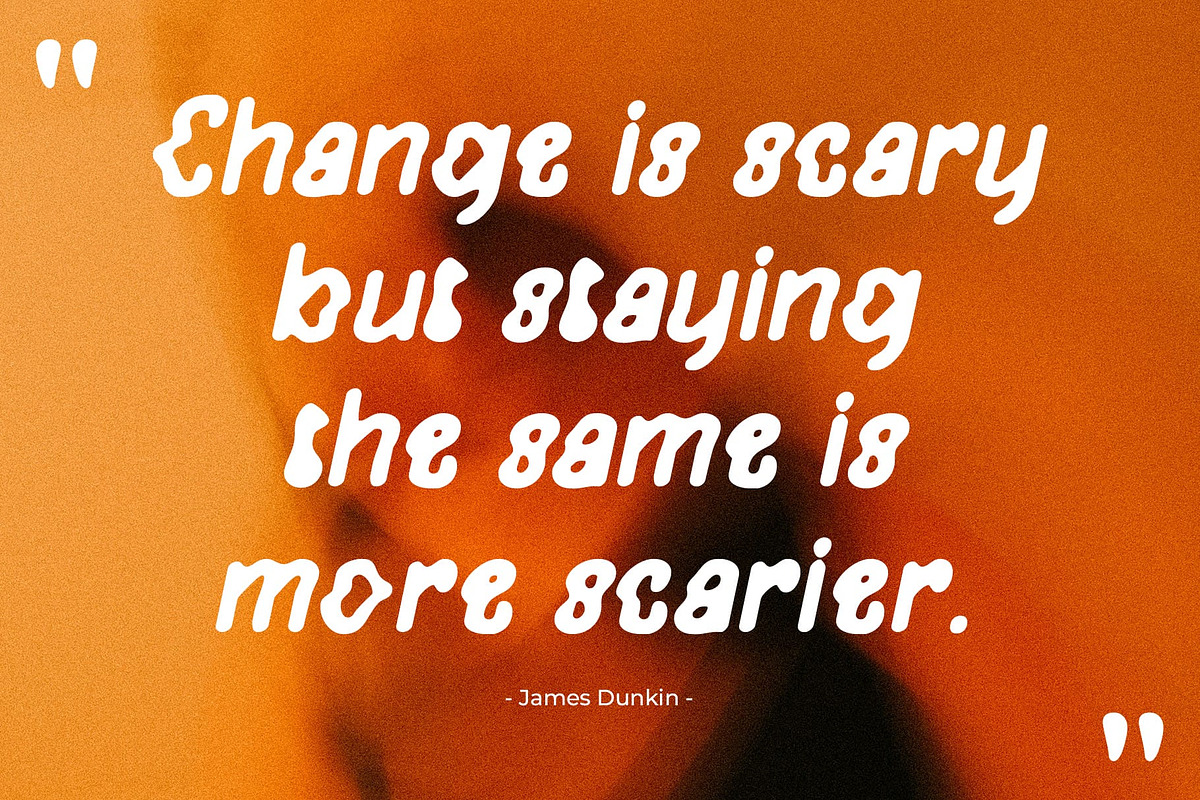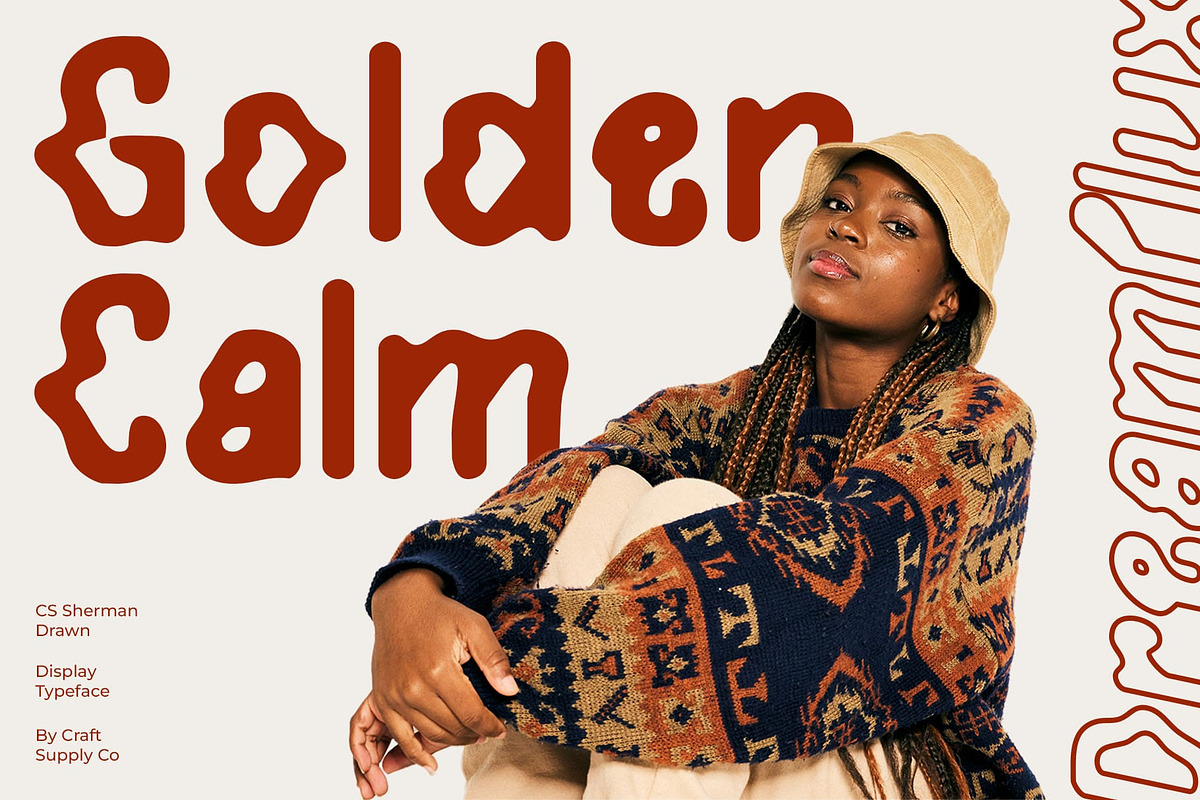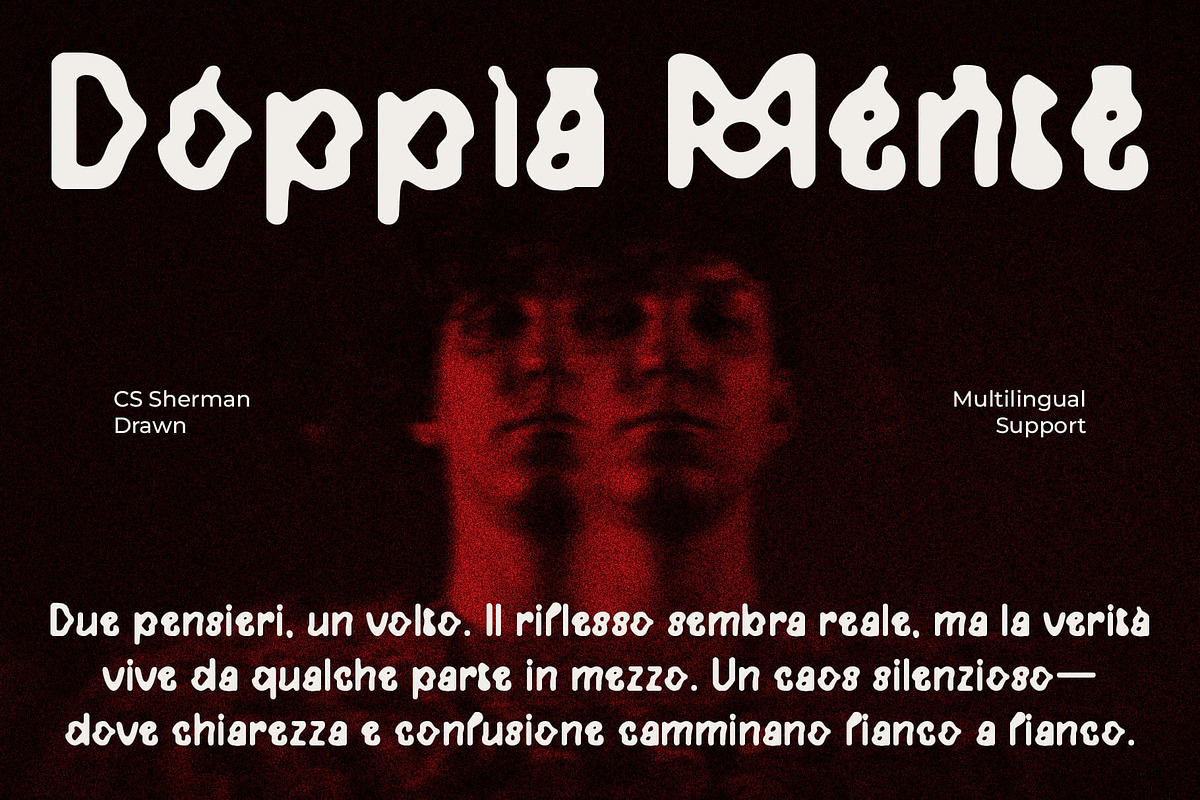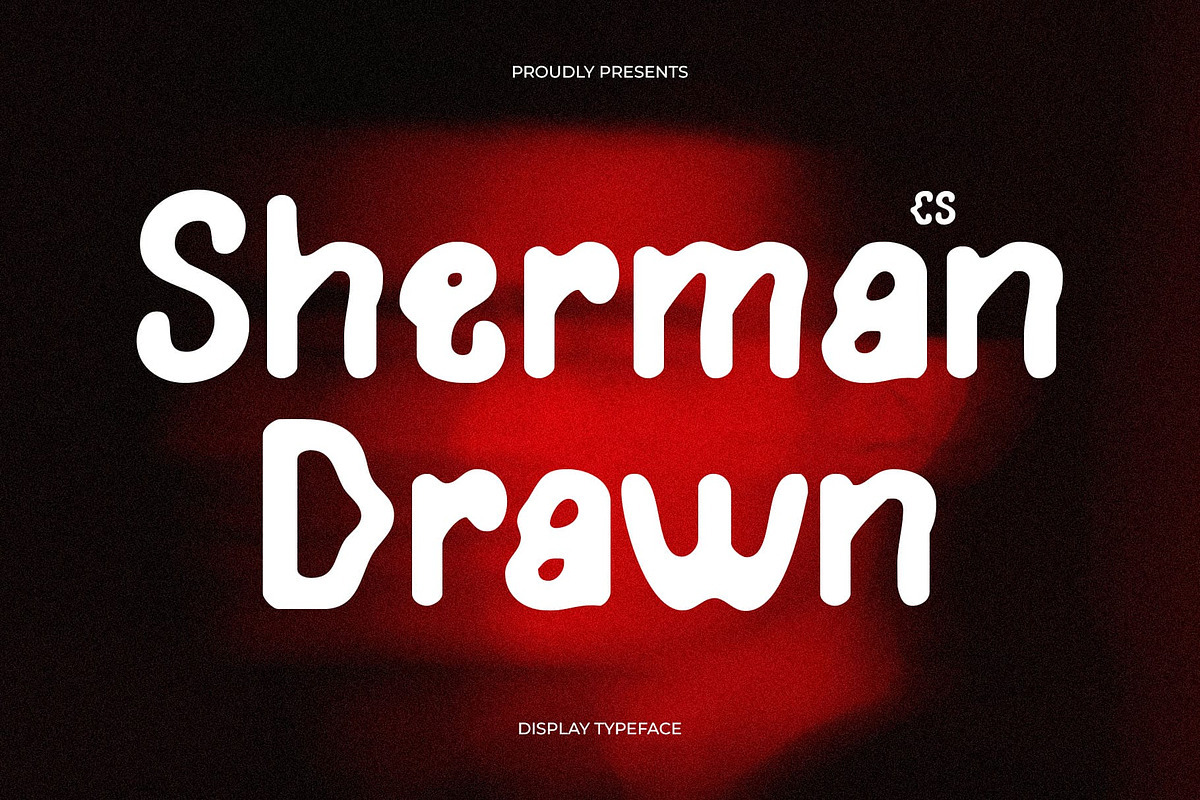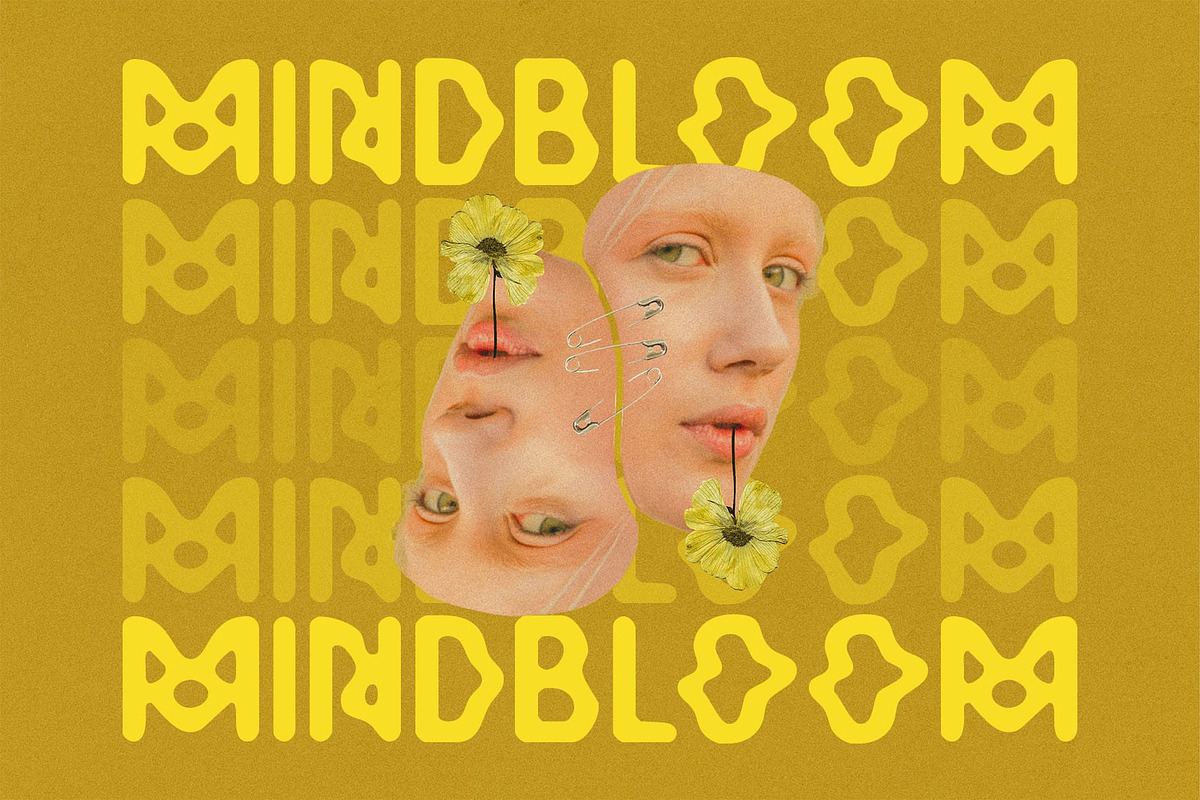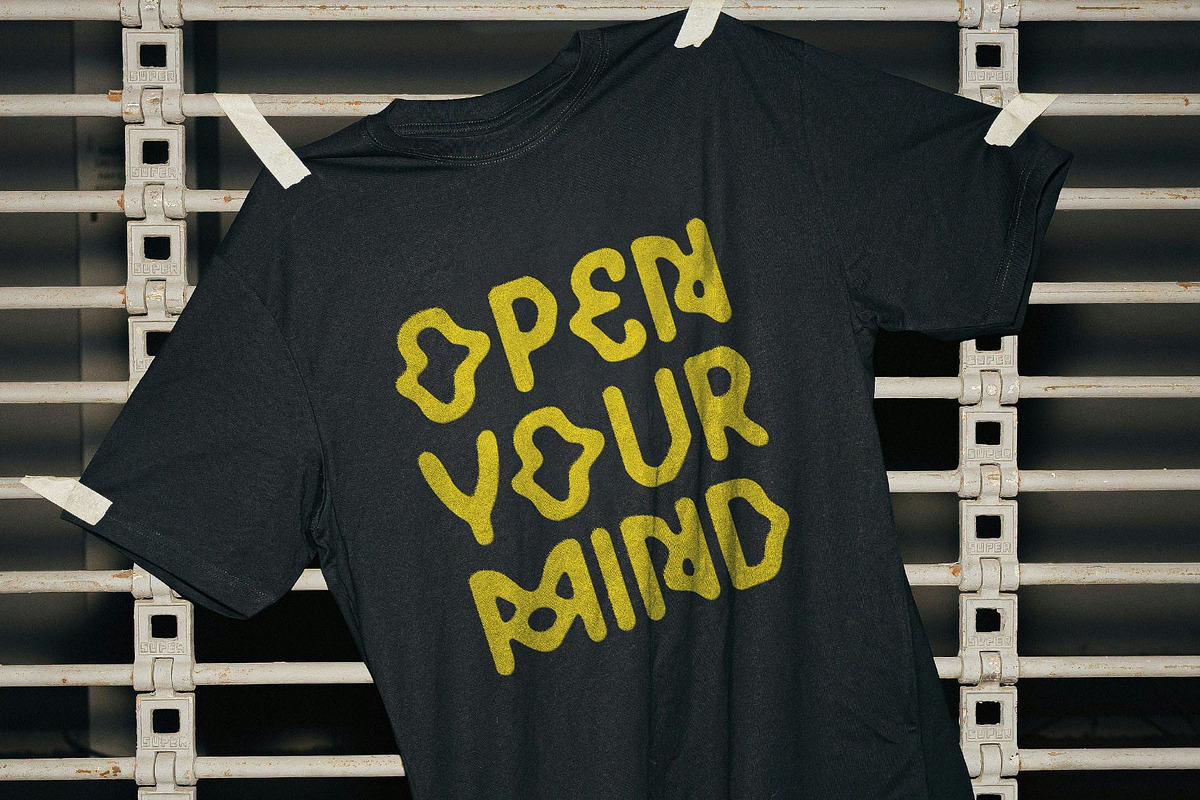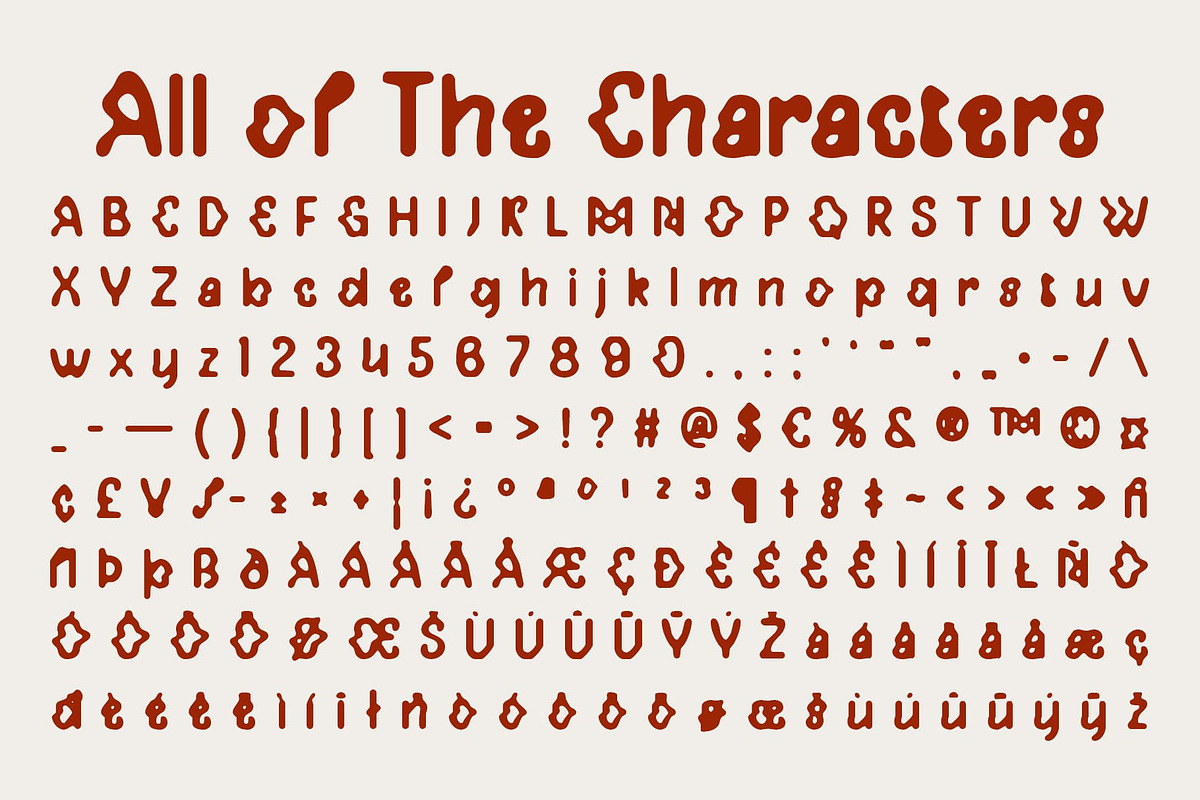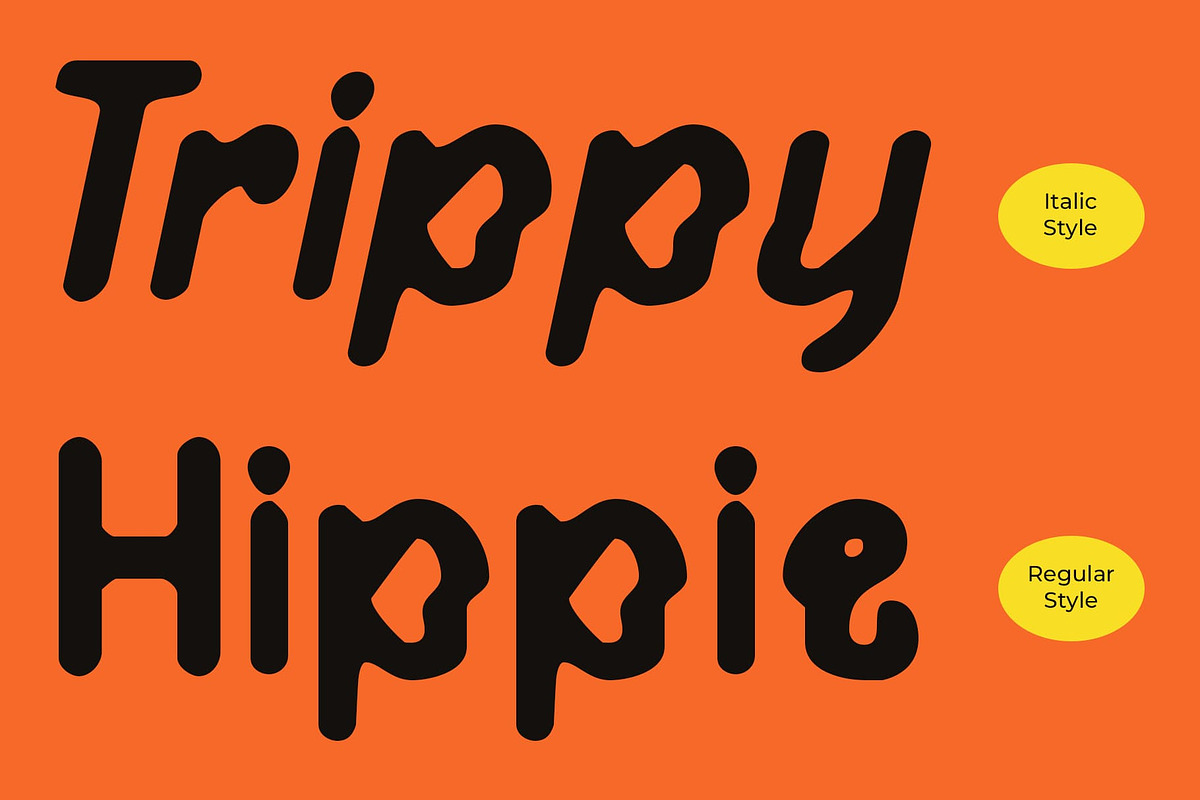
CS Sherman Drawn
CS Sherman Drawn – Trippy Display Font with Handcrafted Energy: Like Psychedelic with Playful Hand-Drawn Style
Psychedelic Curves and Trippy Energy CS Sherman Drawn embraces a psychedelic aesthetic, built with flowing, experimental curves that give it a vibrant and unconventional presence. Its trippy letterforms push boundaries, making it a standout choice for projects that want to feel bold, funky, and full of energy.
Hand-Drawn Character for Playfulness The drawn texture infuses each character with an organic, handmade quality. This playful imperfection enhances the font’s expressive mood, creating a balance between experimental design and approachable charm. It feels alive like a doodle turned into a bold typographic statement.
Funky and Expressive Design CS Sherman Drawn thrives on being different. Its unusual curves and handcrafted details make it ideal for visual storytelling where creativity takes center stage. The psychedelic flow gives designs a retro edge, while the drawn finish keeps them grounded in authenticity and fun.
Perfect for Music and Creative Branding From music posters and album covers to funky editorials and playful branding, CS Sherman Drawn is built for projects that celebrate artistic individuality. It captures the spirit of experimentation while staying versatile enough to be used across a variety of creative contexts.